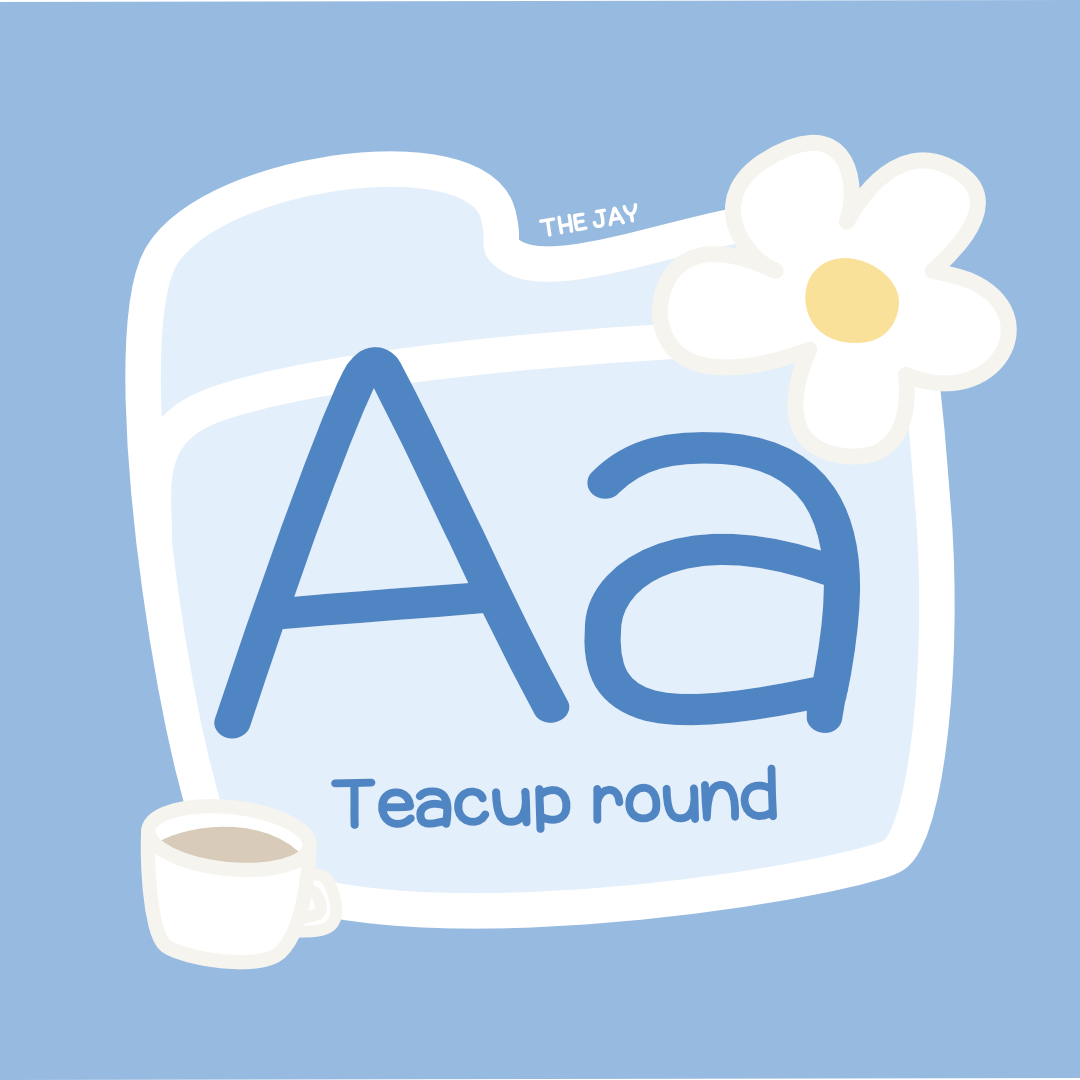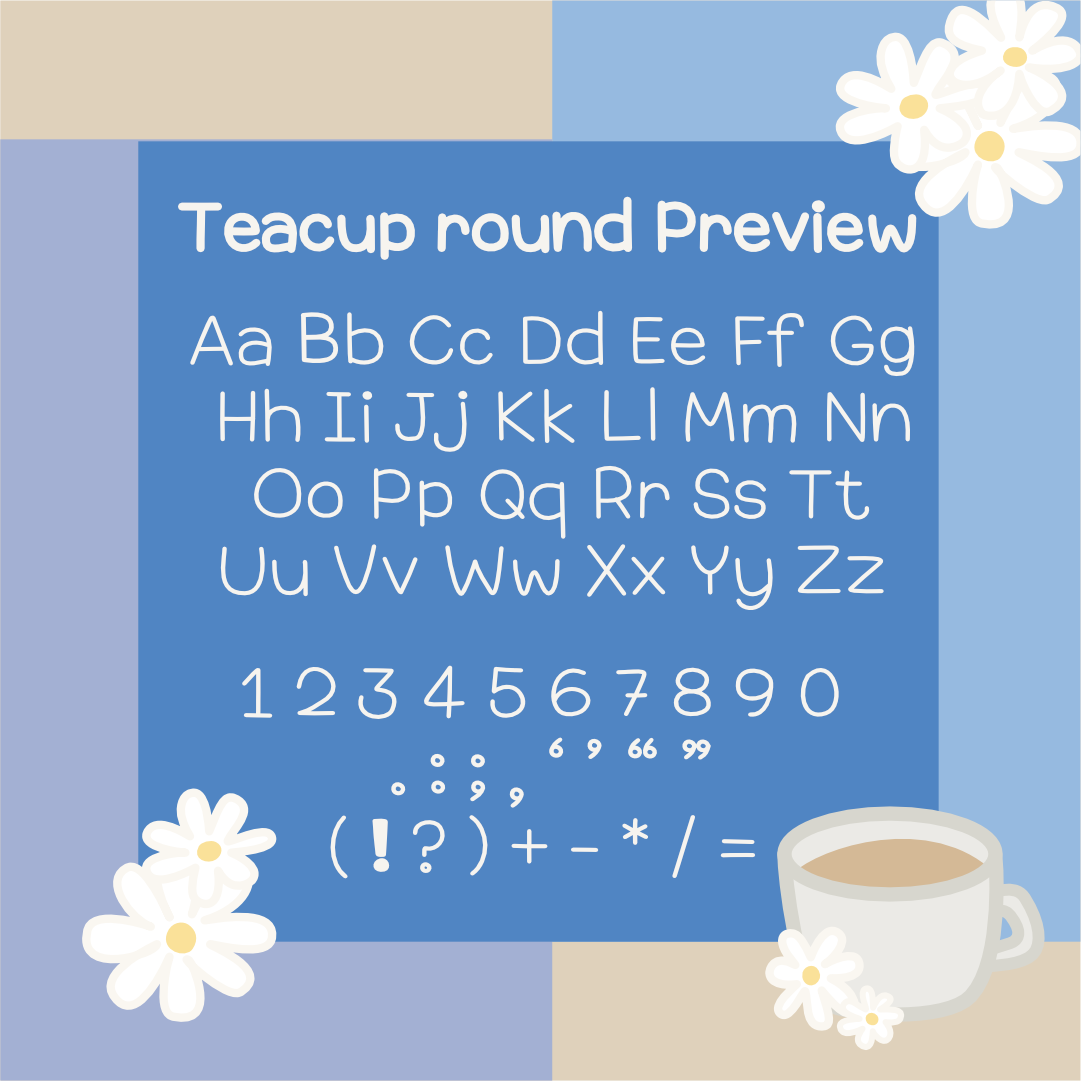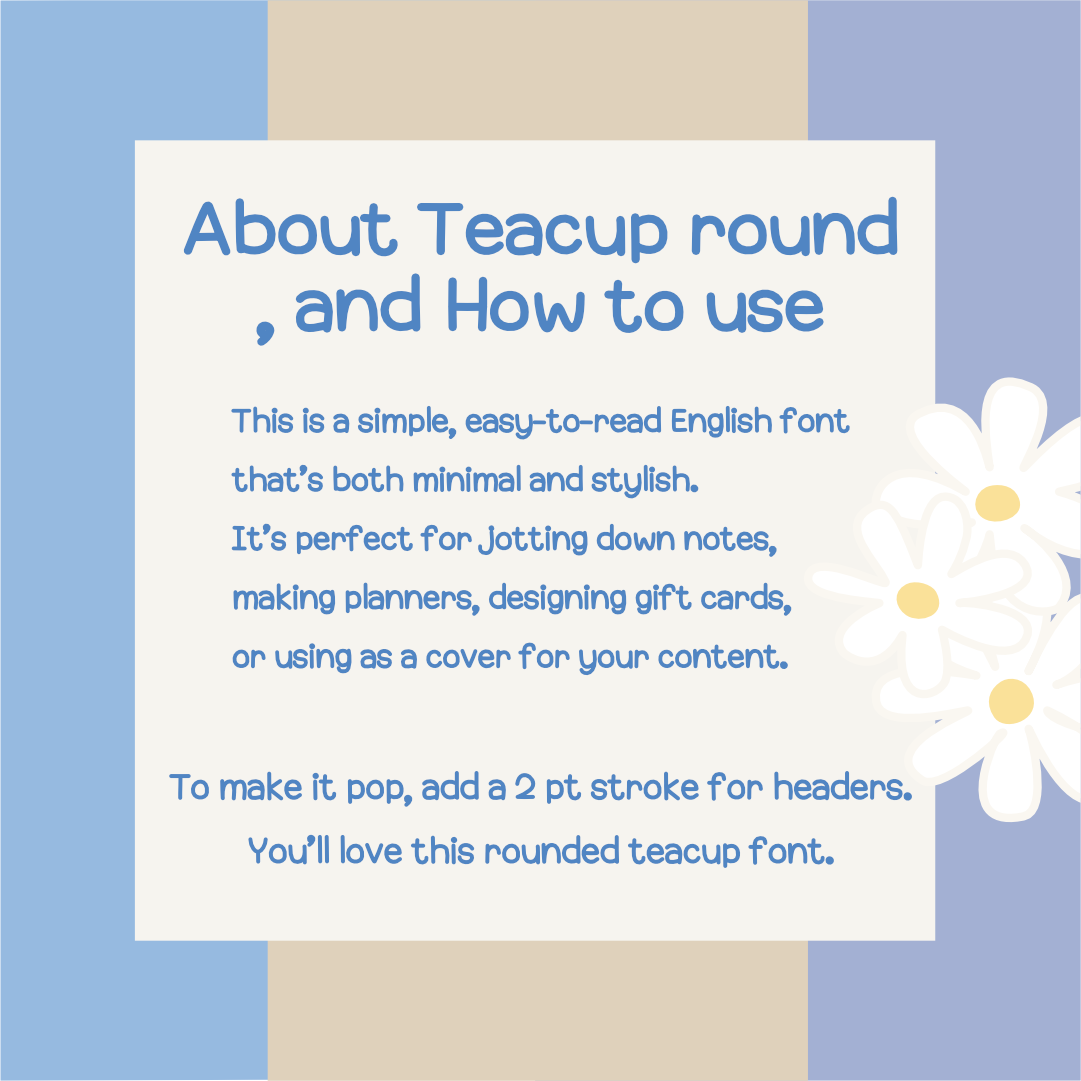
THE JAY | FONT (teacup round)
This simple, easy-to-read English font. For notes, planners, gift cards,
or content covers. Add a 2-point stroke for headers to make it stand out.